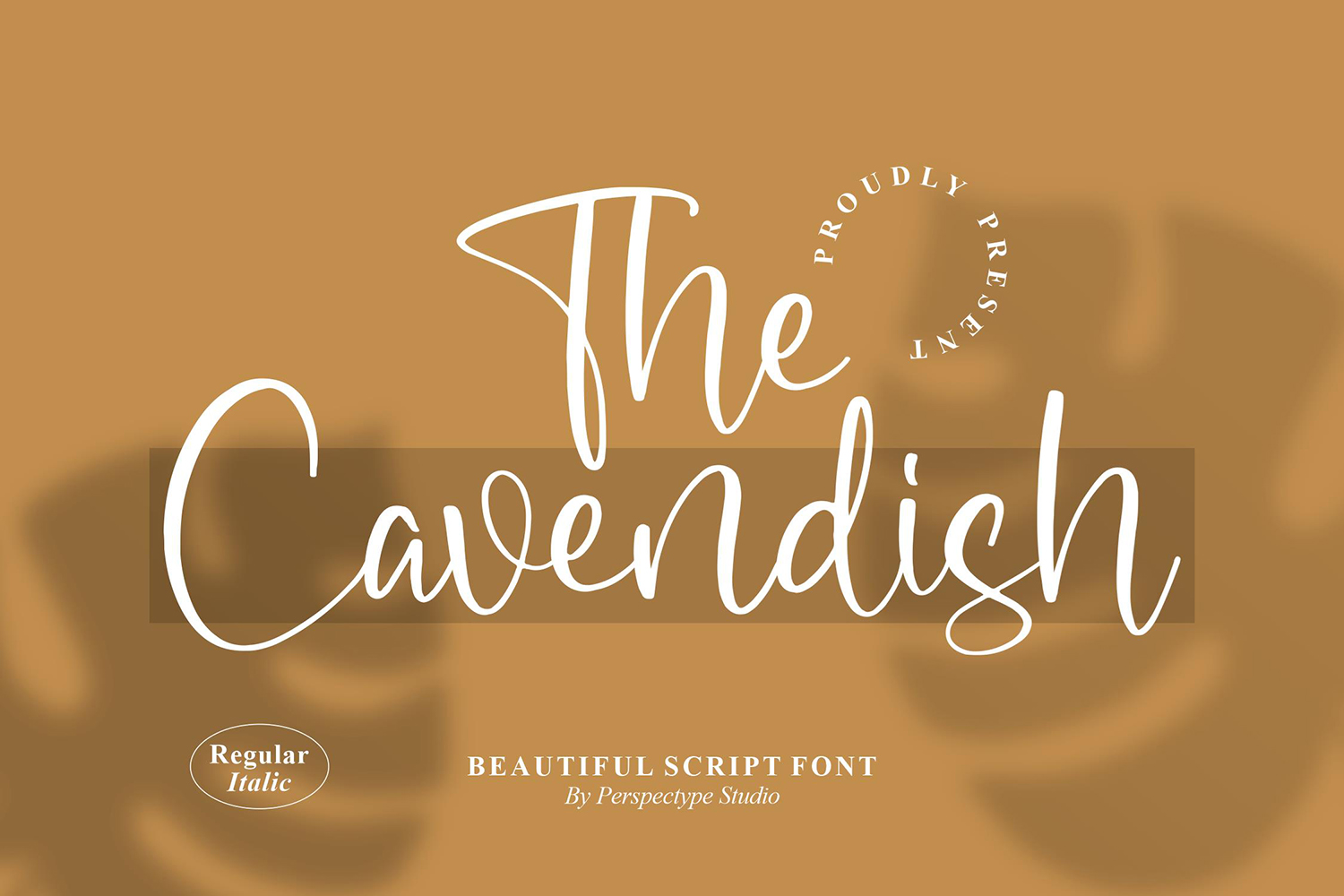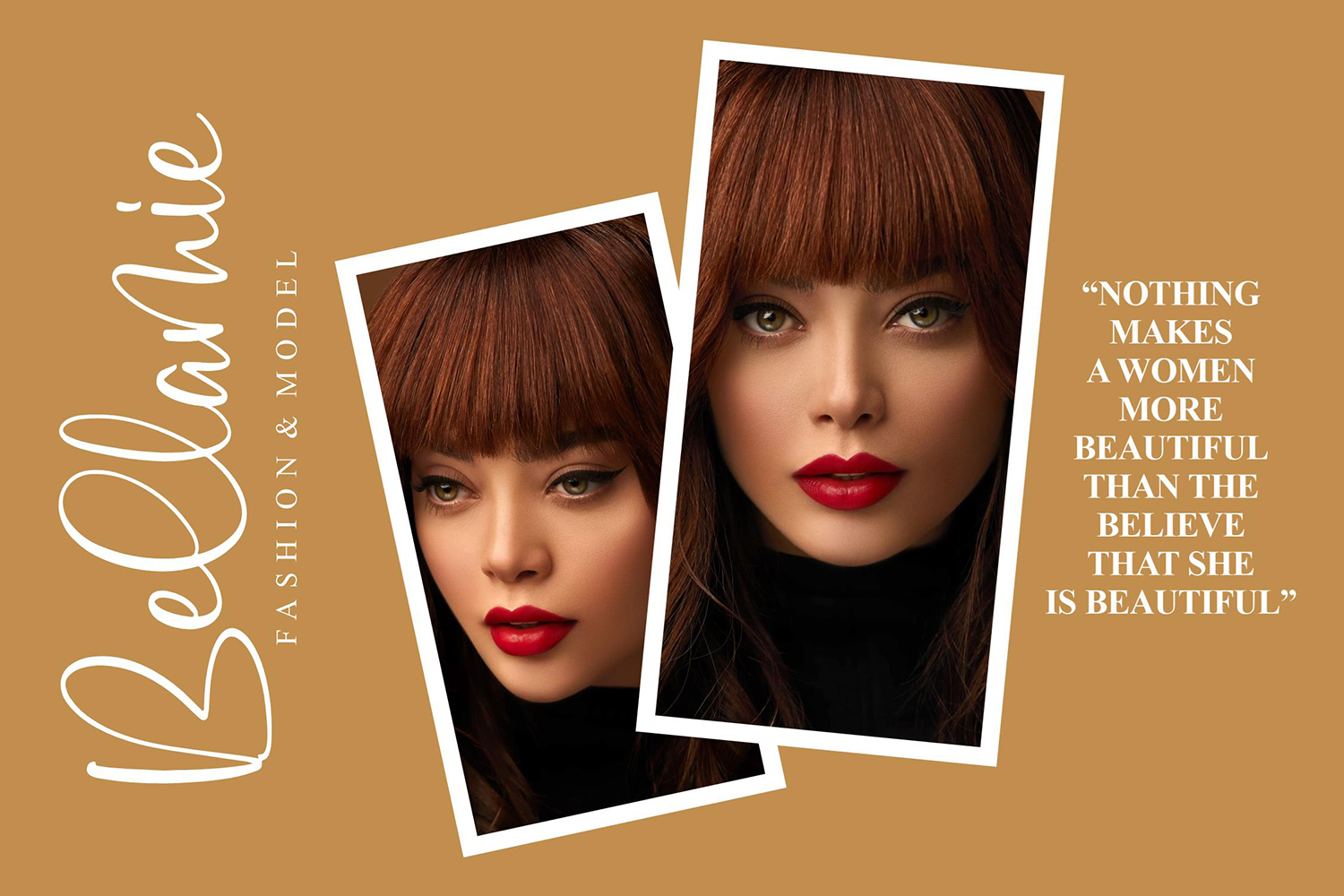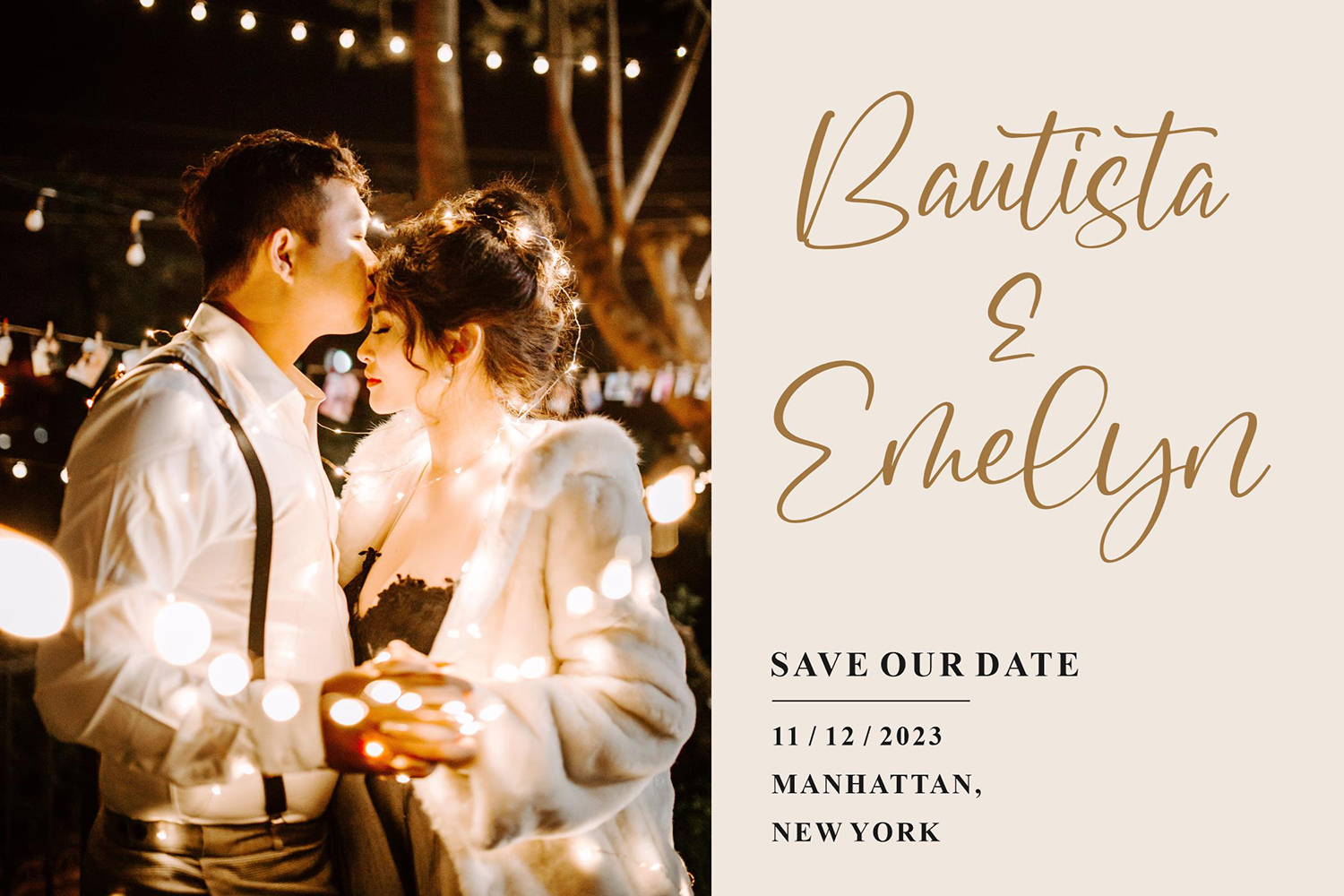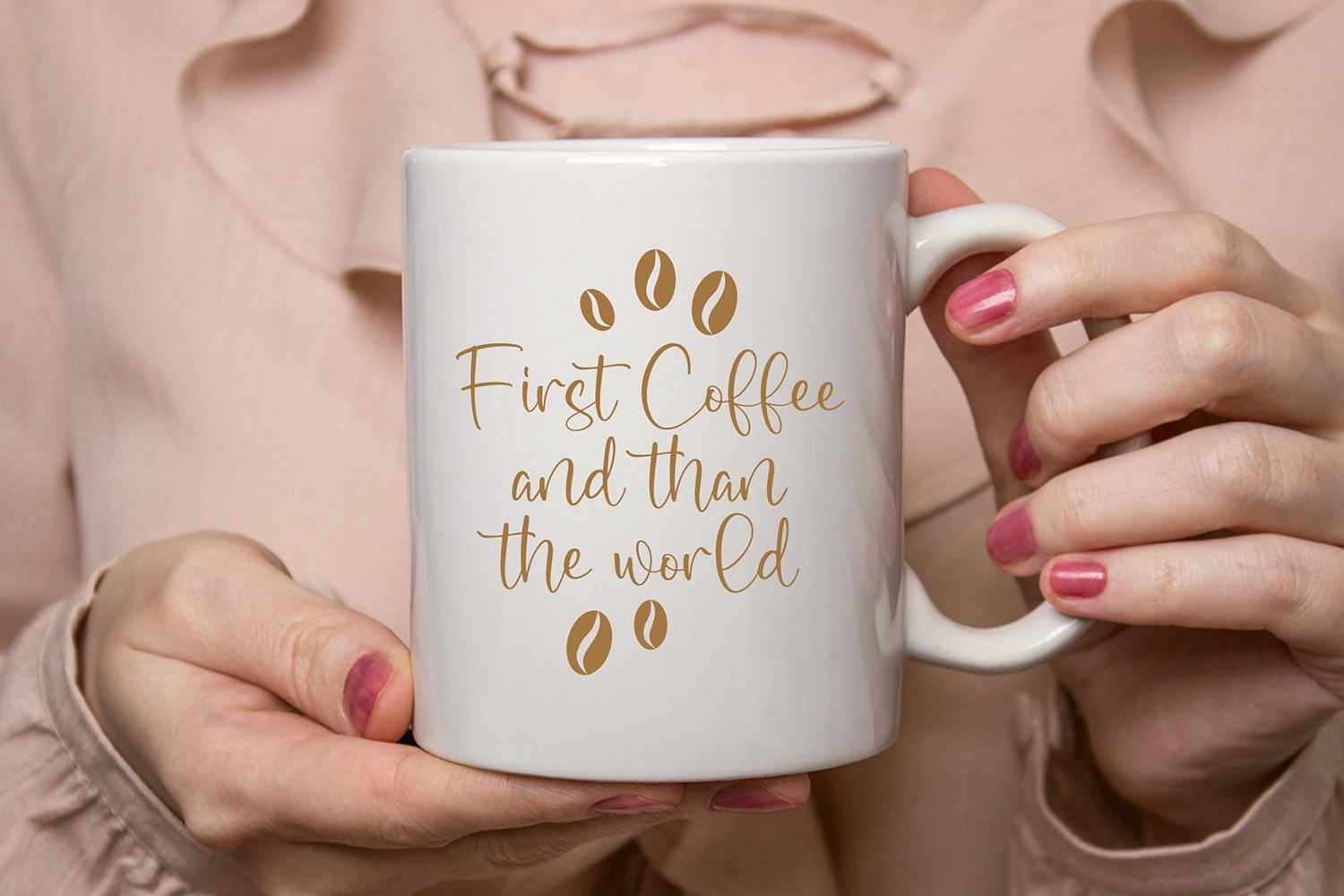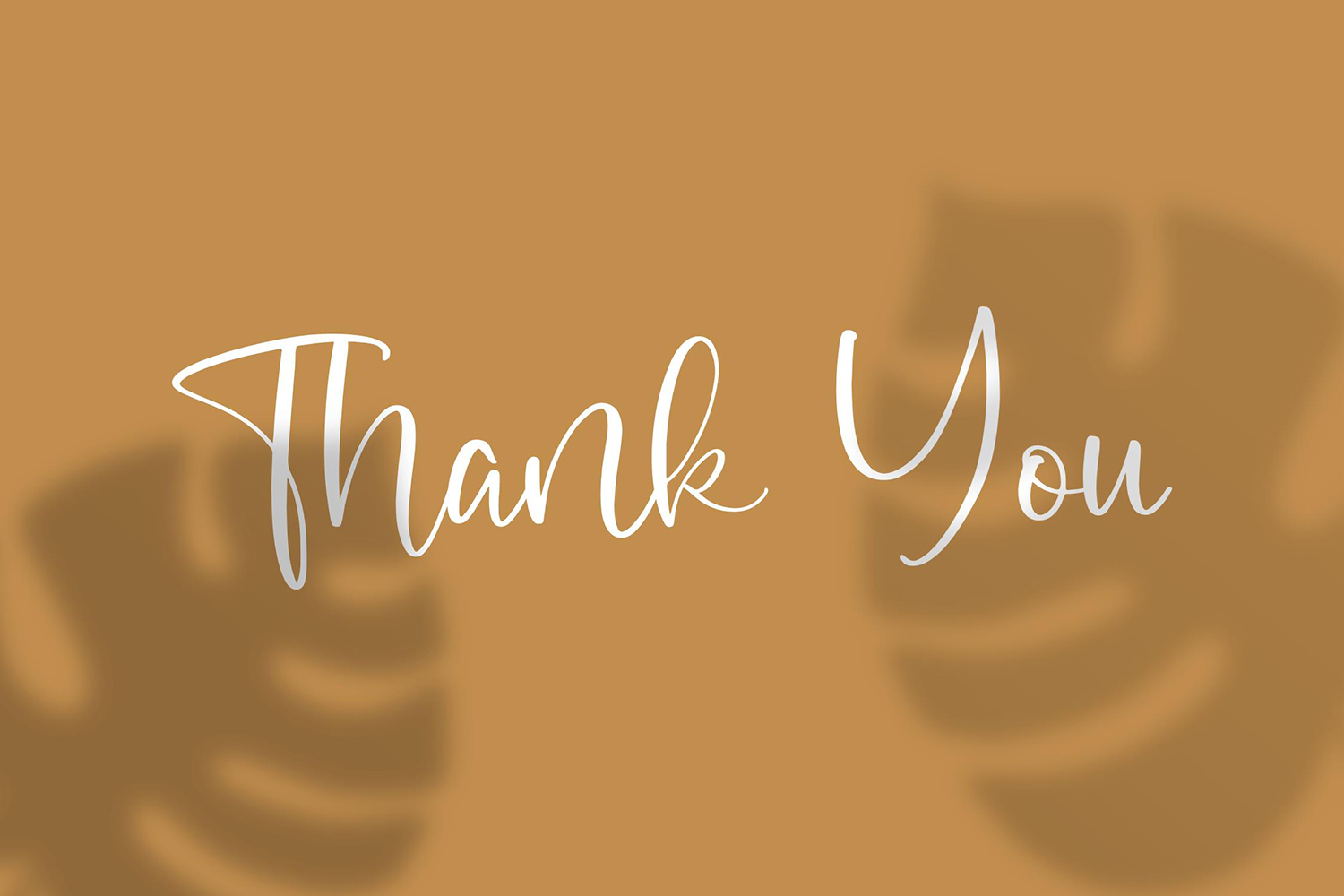
Cavendish Free Font
Cavendish Free Font is a beautiful and elegant script font that exudes sophistication and class. With its fluid and graceful lines, this font is perfect for creating stunning headlines, titles, and branding materials. The font’s unique style is inspired by traditional calligraphy and handwriting, giving it an authentic and timeless feel. The font’s delicate and ornate design makes it perfect for use in wedding invitations, greeting cards, and other special occasion designs. Whether you’re looking for a font to add a touch of elegance to your website or to create a luxurious branding campaign, Cavendish Free Font is sure to make your project stand out.